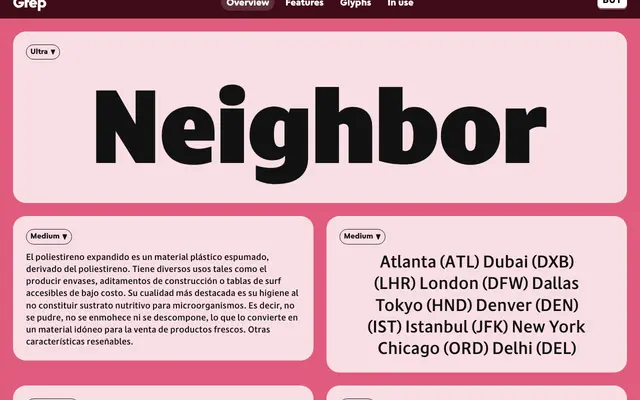
A screen-oriented humanist sans by Ben Kiel, derived from a serif text face and inflected by the stroke modulation of Roger Excoffon's Antique Olive in its heavier weights.
Ben Kiel began with a graduate-school text serif from the University of Reading, stripped away the serifs, and found that the underlying legibility logic held up well for screen interfaces. The lighter weights read cleanly in UI contexts while retaining a bookish warmth unusual in utilitarian sans faces; the heavier weights develop dramatic stroke contrast drawn from Antique Olive. Currently in early access at version 0.1, with italics and an expanded character set still to come.
Grep originated from a serif text face stripped of its serifs, retaining humanist warmth and legibility principles; heavier weights introduce stroke modulation inspired by Excoffon's Antique Olive, placing it firmly in the humanist sans tradition with display tendencies at higher weights.